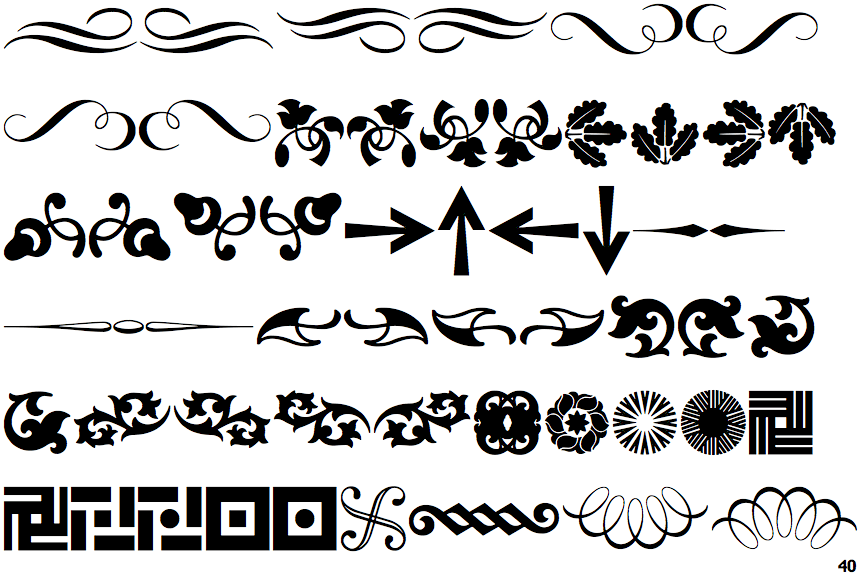
Woodtype Ornaments Font . Adobe woodtype ornaments by adobe is available from type network for desktop, web, app, and epub licensing. Download the adobe wood type ornaments font for mac or windows in opentype,. These sets of typographical ornaments are. Barbara lind and joy redick designed adobe wood type ornaments 1 and 2 in 1990 and 1991 for use with the adobe originals wood types. Adobe woodtype ornaments regular by adobe is available from type network for desktop, web, app, and epub licensing. Download adobe wood type ornaments volume, provided on fonts.com. Adobe wood type font family was designed by barbara lind, joy redick and published by adobe. The font family is adobe wood type. Adobe wood type ornaments one is the perfect font for all your fun designs. Download adobe wood type® ornaments 1 font. Adobe wood type contains 1 styles. Adobe wood type ornaments by adobe.
Adobe woodtype ornaments regular by adobe is available from type network for desktop, web, app, and epub licensing. Adobe woodtype ornaments by adobe is available from type network for desktop, web, app, and epub licensing. Adobe wood type contains 1 styles. Download adobe wood type ornaments volume, provided on fonts.com. Adobe wood type ornaments by adobe. These sets of typographical ornaments are. Adobe wood type font family was designed by barbara lind, joy redick and published by adobe. Barbara lind and joy redick designed adobe wood type ornaments 1 and 2 in 1990 and 1991 for use with the adobe originals wood types. Adobe wood type ornaments one is the perfect font for all your fun designs. Download the adobe wood type ornaments font for mac or windows in opentype,.
Woodtype Ornaments Font Adobe woodtype ornaments regular by adobe is available from type network for desktop, web, app, and epub licensing. Adobe wood type font family was designed by barbara lind, joy redick and published by adobe. Download adobe wood type® ornaments 1 font. Download adobe wood type ornaments volume, provided on fonts.com. Adobe woodtype ornaments regular by adobe is available from type network for desktop, web, app, and epub licensing. The font family is adobe wood type. Adobe wood type ornaments one is the perfect font for all your fun designs. Adobe wood type ornaments by adobe. These sets of typographical ornaments are. Adobe woodtype ornaments by adobe is available from type network for desktop, web, app, and epub licensing. Adobe wood type contains 1 styles. Download the adobe wood type ornaments font for mac or windows in opentype,. Barbara lind and joy redick designed adobe wood type ornaments 1 and 2 in 1990 and 1991 for use with the adobe originals wood types.
Free Images word, white, vintage, antique, grain, old, wall, pattern Woodtype Ornaments Font Adobe wood type ornaments by adobe. Barbara lind and joy redick designed adobe wood type ornaments 1 and 2 in 1990 and 1991 for use with the adobe originals wood types. Download adobe wood type ornaments volume, provided on fonts.com. Adobe woodtype ornaments regular by adobe is available from type network for desktop, web, app, and epub licensing. The font. Woodtype Ornaments Font.
Woodtype Ornaments 2 Font Download For Free, View Sample Text, Rating Woodtype Ornaments Font Adobe wood type ornaments by adobe. Download adobe wood type® ornaments 1 font. Adobe wood type font family was designed by barbara lind, joy redick and published by adobe. Adobe woodtype ornaments by adobe is available from type network for desktop, web, app, and epub licensing. Adobe woodtype ornaments regular by adobe is available from type network for desktop, web,. Woodtype Ornaments Font.
ASTYPE Ornaments Font Download For Free, View Sample Text, Rating And Woodtype Ornaments Font Download the adobe wood type ornaments font for mac or windows in opentype,. These sets of typographical ornaments are. Adobe wood type ornaments one is the perfect font for all your fun designs. Adobe wood type contains 1 styles. Barbara lind and joy redick designed adobe wood type ornaments 1 and 2 in 1990 and 1991 for use with the. Woodtype Ornaments Font.
Identifont Ommegaand Ornaments Woodtype Ornaments Font Adobe wood type font family was designed by barbara lind, joy redick and published by adobe. Adobe wood type ornaments by adobe. Download adobe wood type® ornaments 1 font. Adobe wood type contains 1 styles. Download the adobe wood type ornaments font for mac or windows in opentype,. Adobe woodtype ornaments regular by adobe is available from type network for. Woodtype Ornaments Font.
Christmas Ornaments font details Woodtype Ornaments Font These sets of typographical ornaments are. The font family is adobe wood type. Adobe wood type contains 1 styles. Adobe woodtype ornaments by adobe is available from type network for desktop, web, app, and epub licensing. Barbara lind and joy redick designed adobe wood type ornaments 1 and 2 in 1990 and 1991 for use with the adobe originals wood. Woodtype Ornaments Font.
Pin on Ripe for the Picking Woodtype Ornaments Font Download adobe wood type ornaments volume, provided on fonts.com. The font family is adobe wood type. These sets of typographical ornaments are. Adobe woodtype ornaments by adobe is available from type network for desktop, web, app, and epub licensing. Adobe wood type font family was designed by barbara lind, joy redick and published by adobe. Download adobe wood type® ornaments. Woodtype Ornaments Font.
Ornaments Font by goodigital · Creative Fabrica Woodtype Ornaments Font Adobe wood type ornaments one is the perfect font for all your fun designs. Adobe woodtype ornaments by adobe is available from type network for desktop, web, app, and epub licensing. Adobe wood type font family was designed by barbara lind, joy redick and published by adobe. Download the adobe wood type ornaments font for mac or windows in opentype,.. Woodtype Ornaments Font.
Adobe Wood Type Ornaments Std Font download free Woodtype Ornaments Font Download adobe wood type® ornaments 1 font. Download adobe wood type ornaments volume, provided on fonts.com. Adobe wood type contains 1 styles. These sets of typographical ornaments are. The font family is adobe wood type. Adobe woodtype ornaments by adobe is available from type network for desktop, web, app, and epub licensing. Adobe wood type font family was designed by. Woodtype Ornaments Font.
Hamilton Wood Type Catalog 14 Types of wood, Lettering, Type Woodtype Ornaments Font Adobe woodtype ornaments by adobe is available from type network for desktop, web, app, and epub licensing. Download the adobe wood type ornaments font for mac or windows in opentype,. Adobe wood type font family was designed by barbara lind, joy redick and published by adobe. Download adobe wood type® ornaments 1 font. Adobe wood type ornaments one is the. Woodtype Ornaments Font.